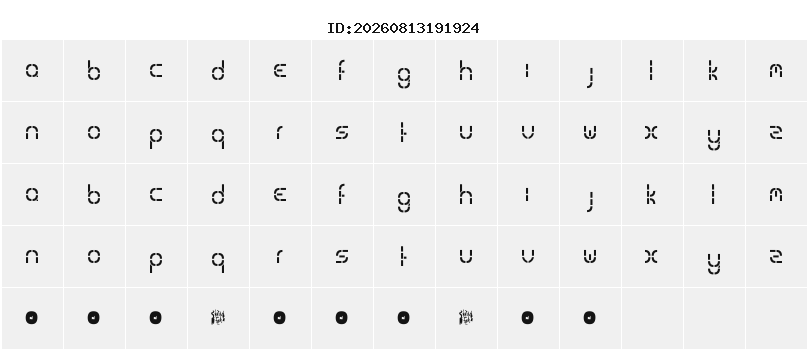
special k. Preview
About special k..ttf
special k..ttf is a modern, elegant sans-serif font designed for ultimate readability and visual harmony. Perfect for branding, headlines, web design, and print materials.